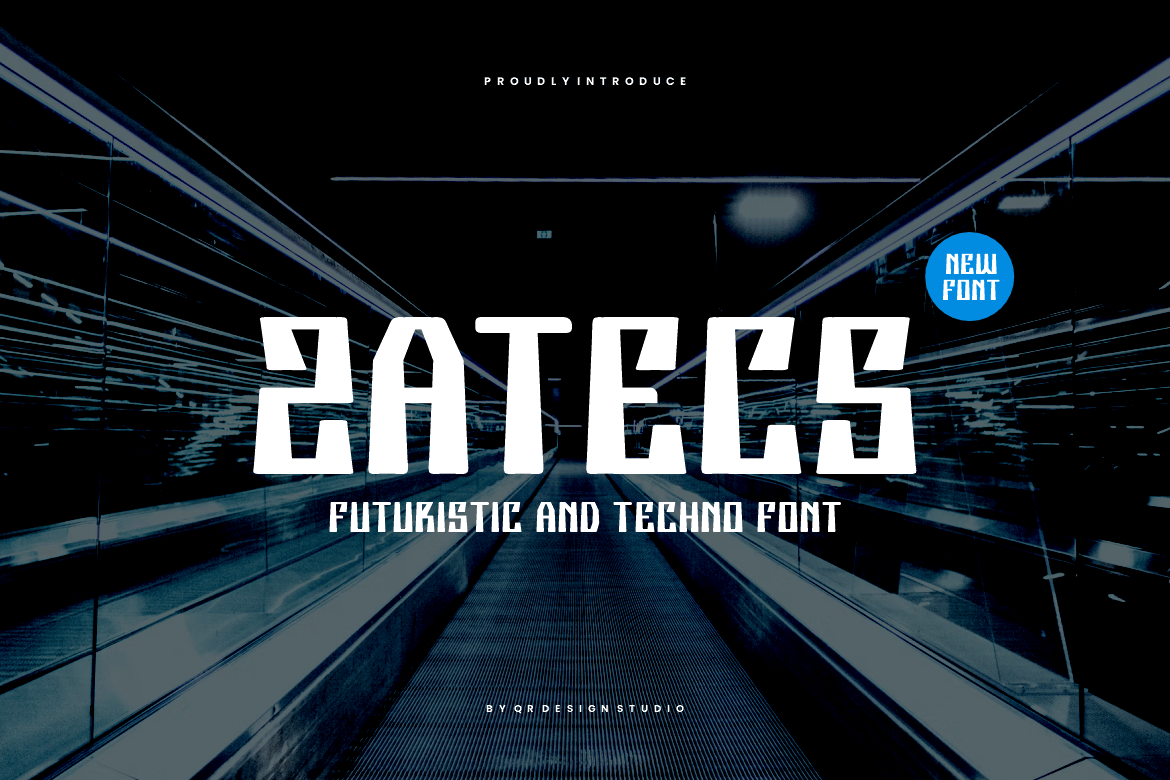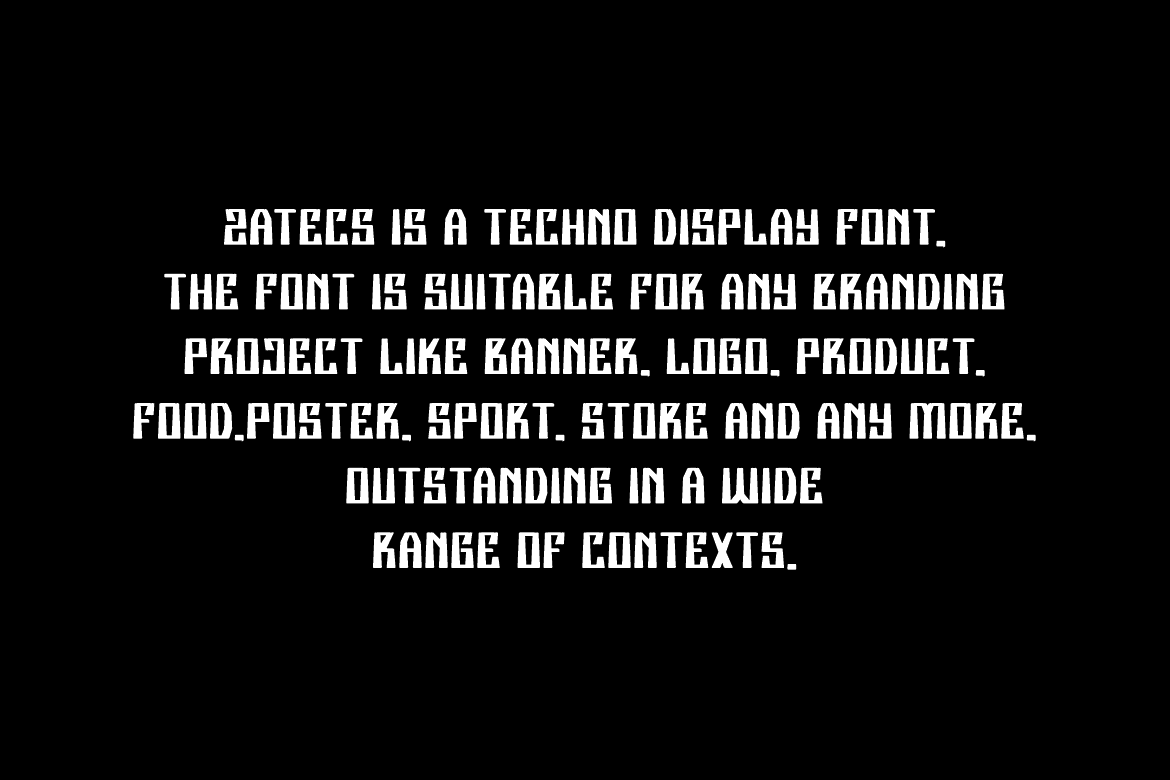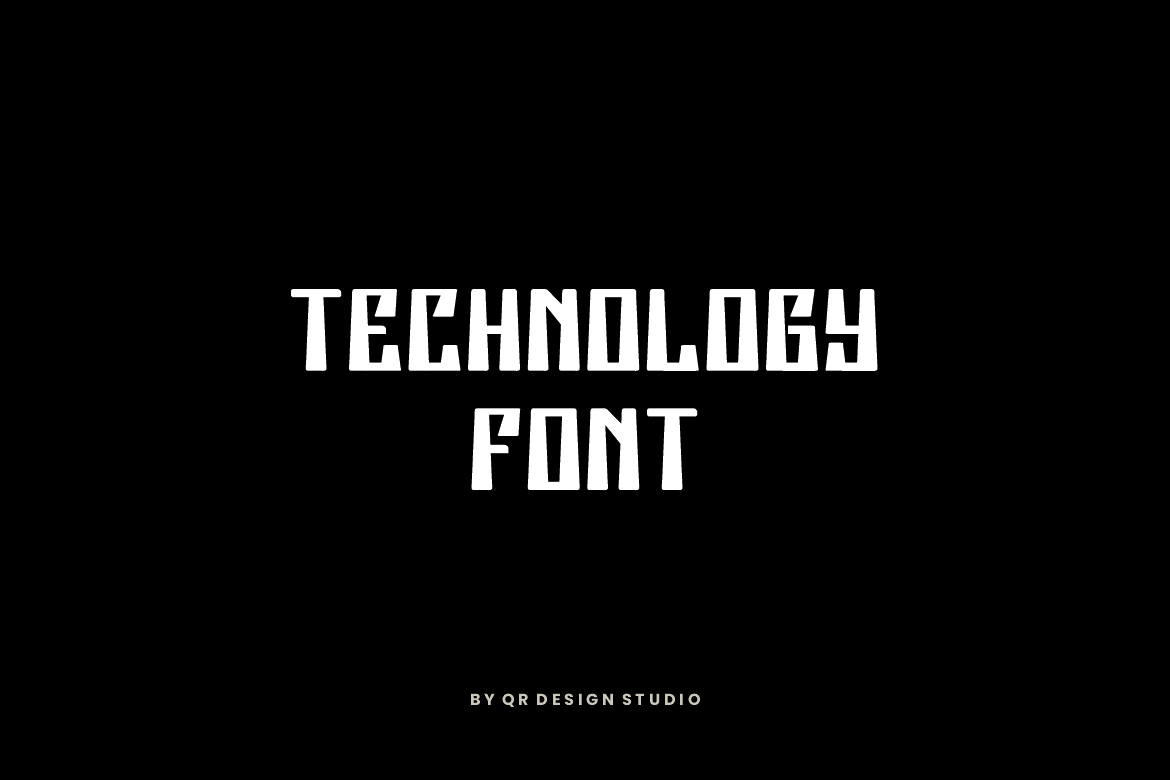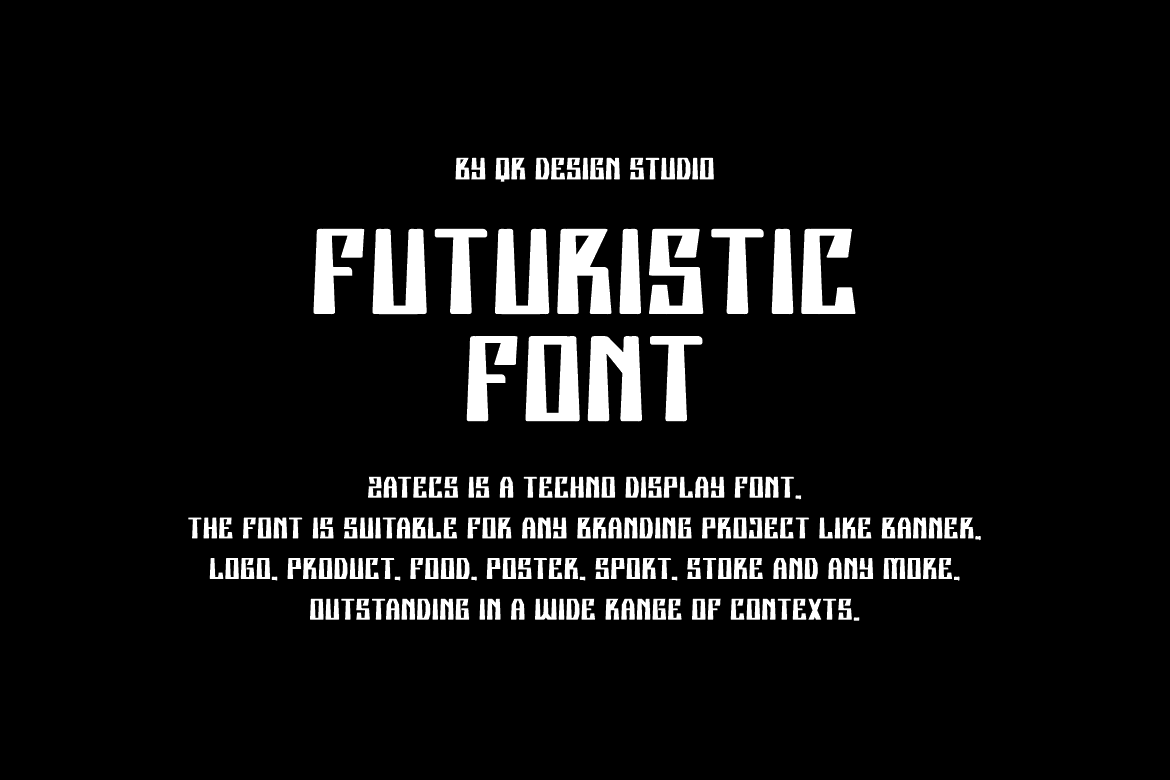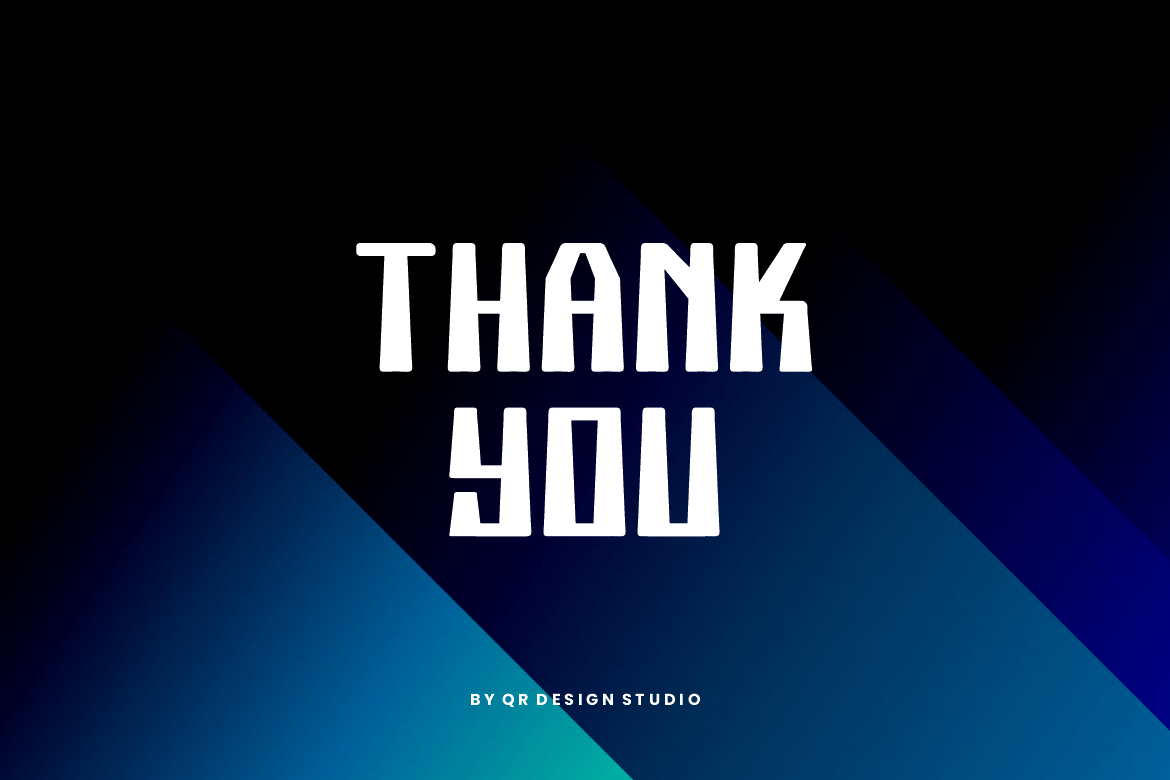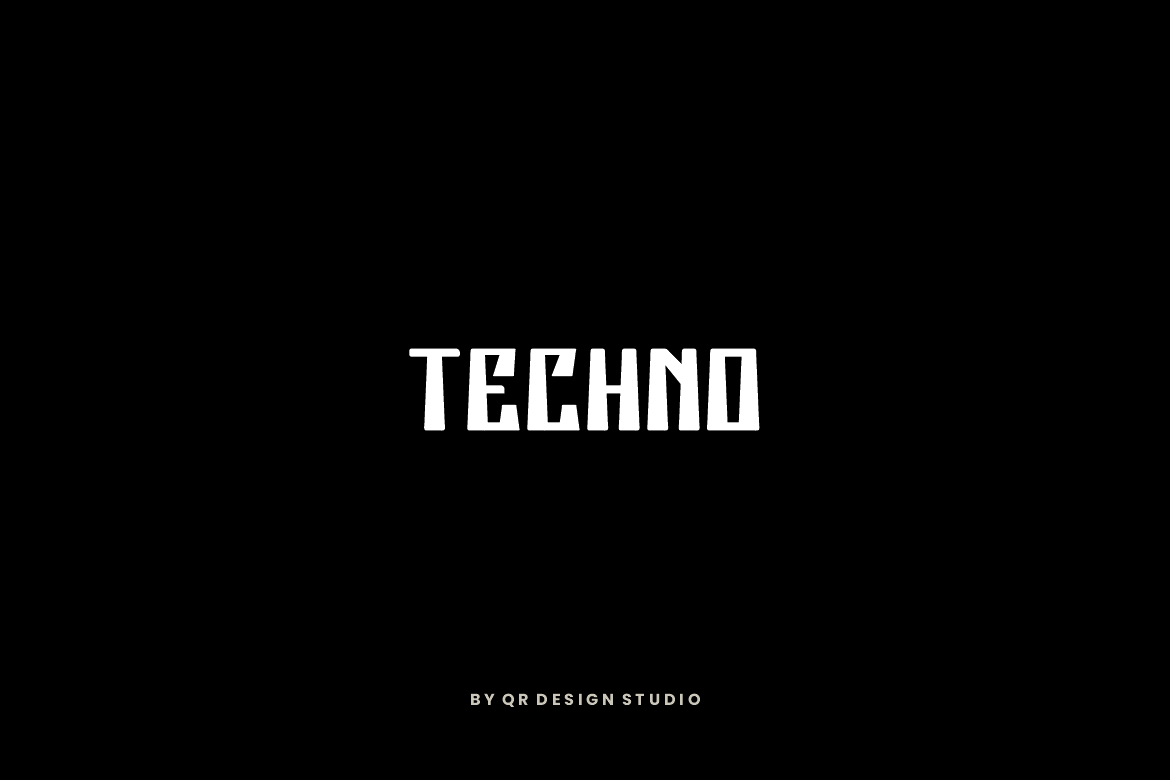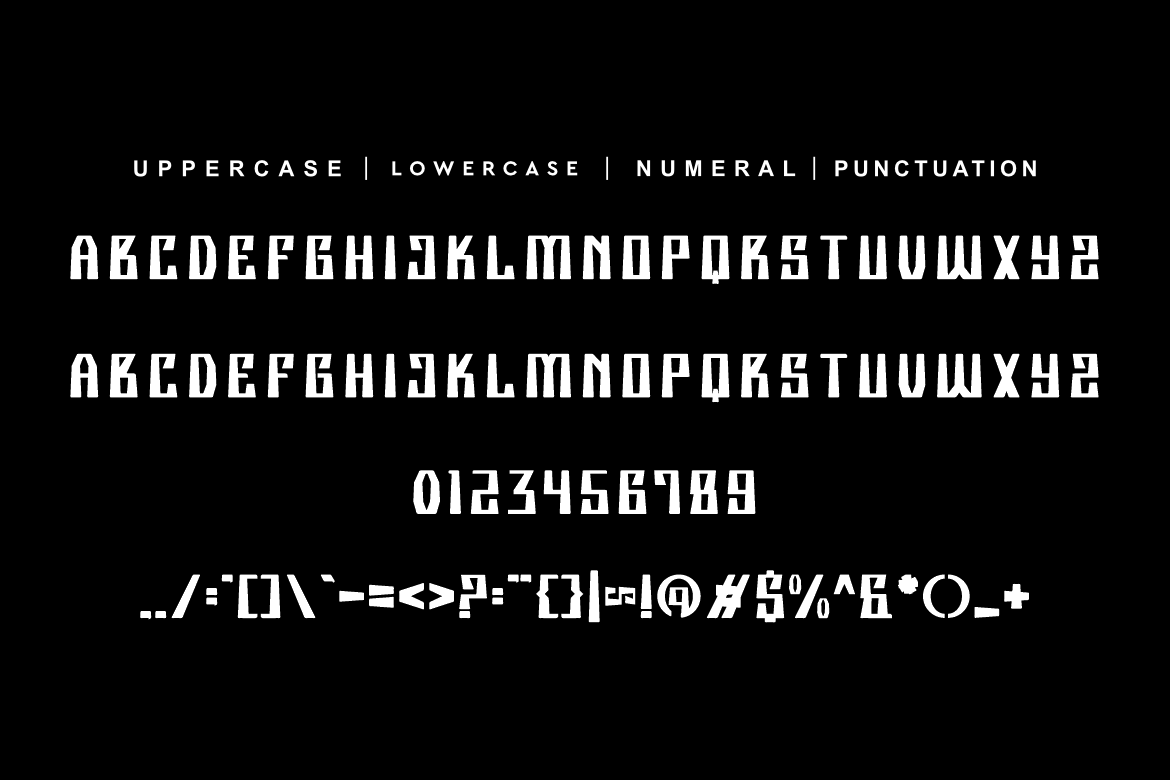
Zatecs – Futuristic & Tech Font NYX4J6X
**Zatecs Font** is a bold and authentic display font.
The font is suitable for any branding project like poster, logo, sport, and many more.
Outstanding in a wide range of contexts.